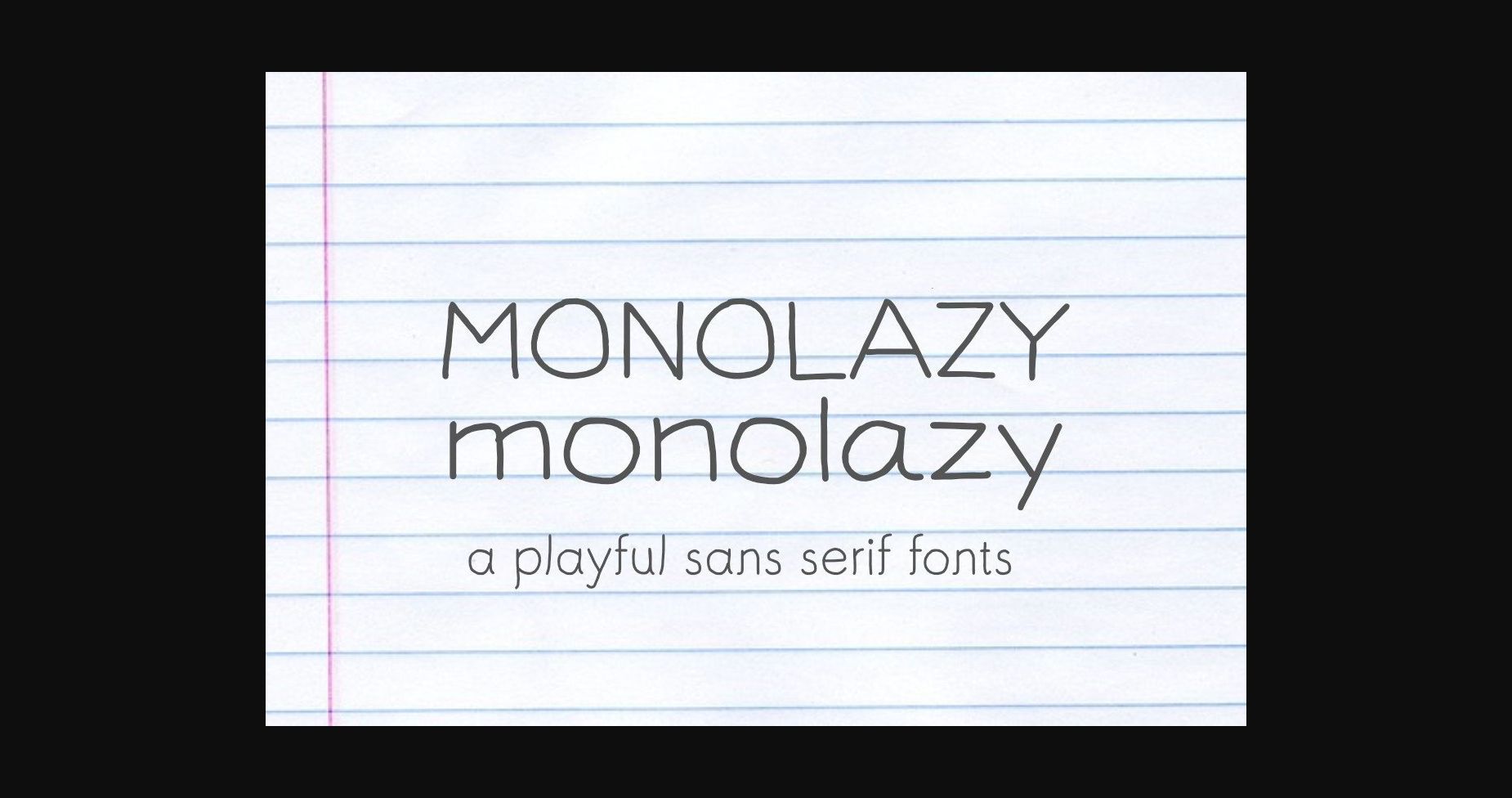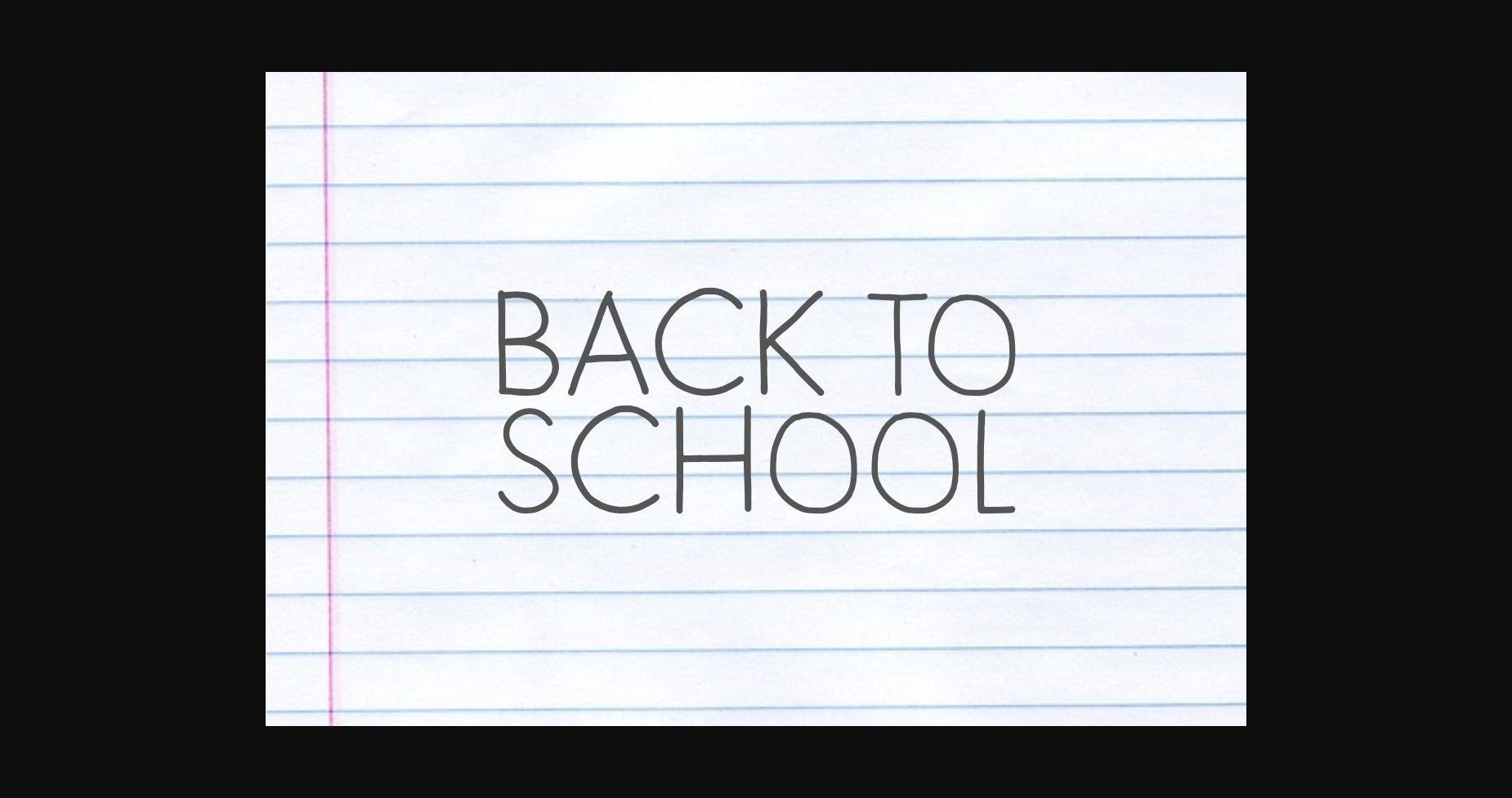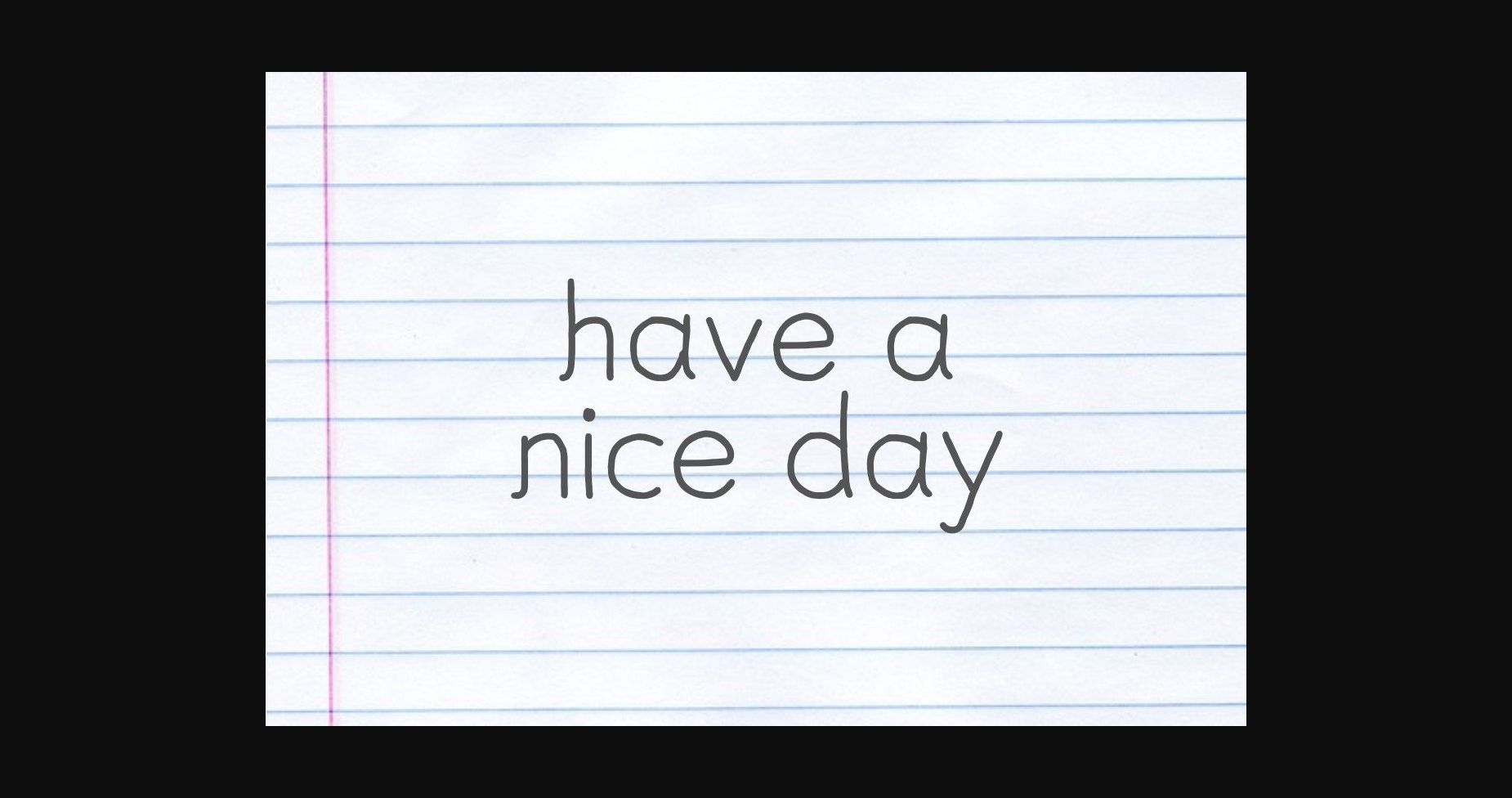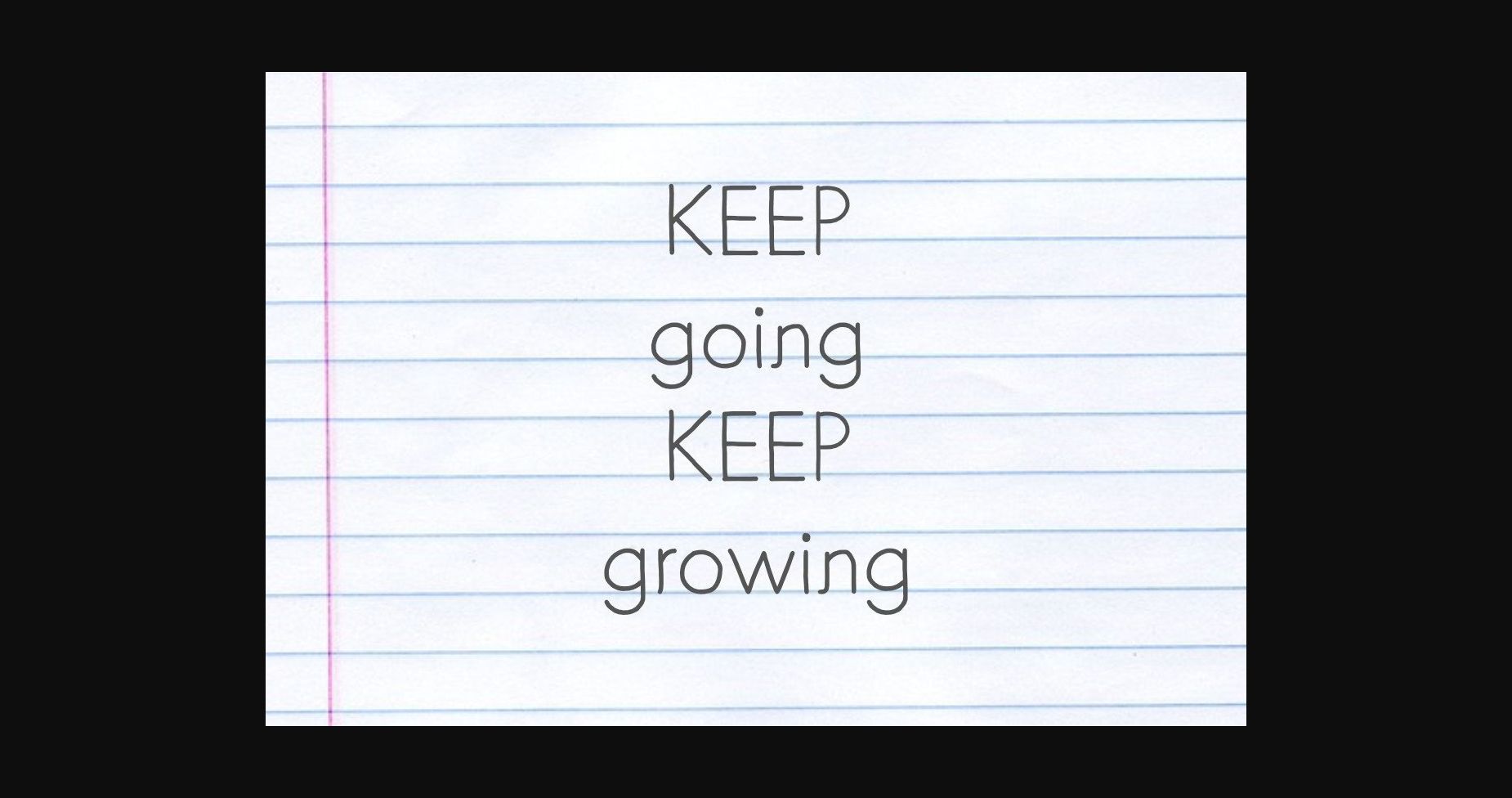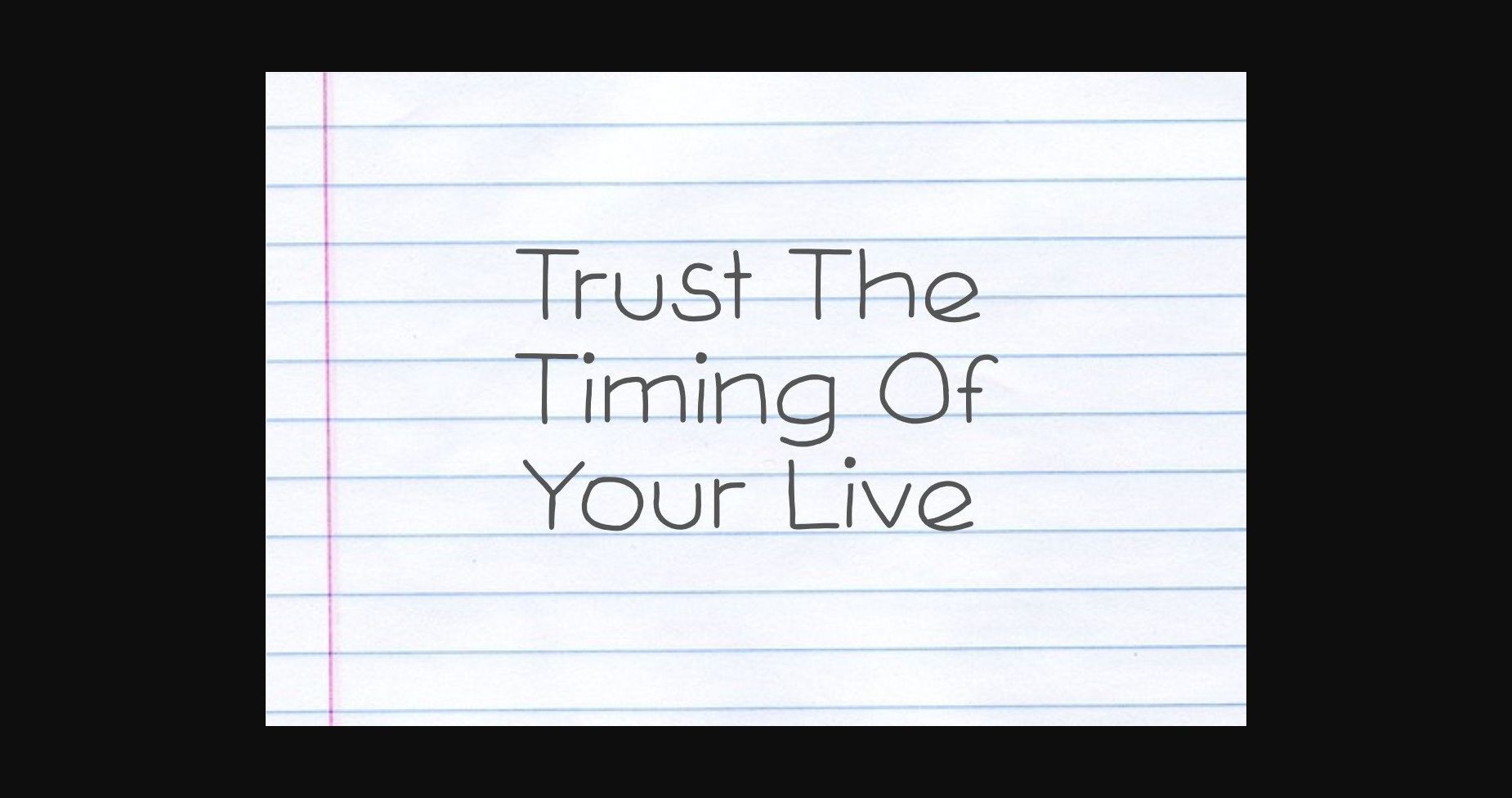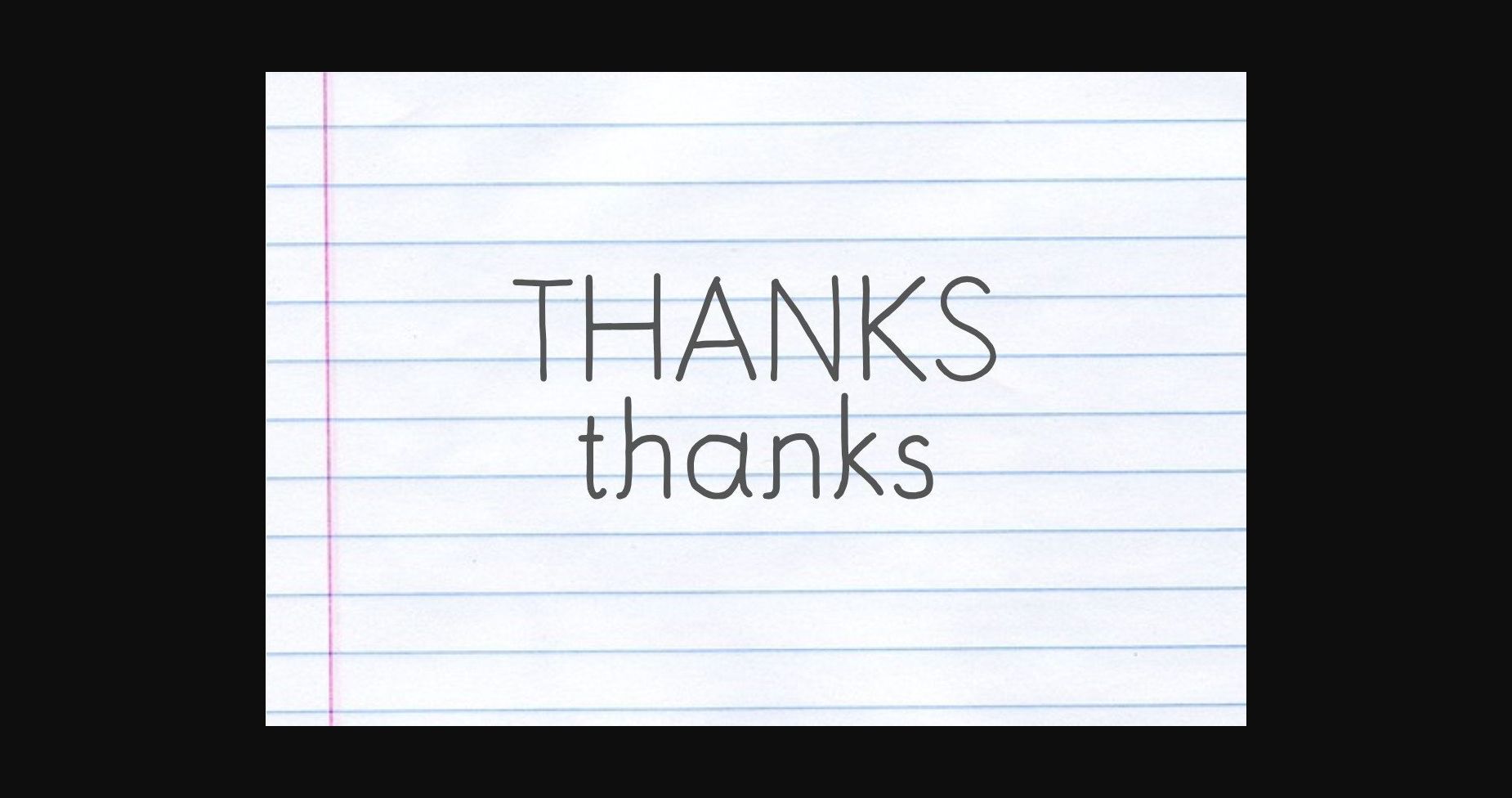
Monolazy Font
About Monolazy Font
Monolazy is a thin and playful sans serif font. Add a modern touch to your design projects with this minimalist font! Enjoy its versatility and use it for posters, paragraphs, quotes, flyers, t-shirts, websites, books, and so much more.